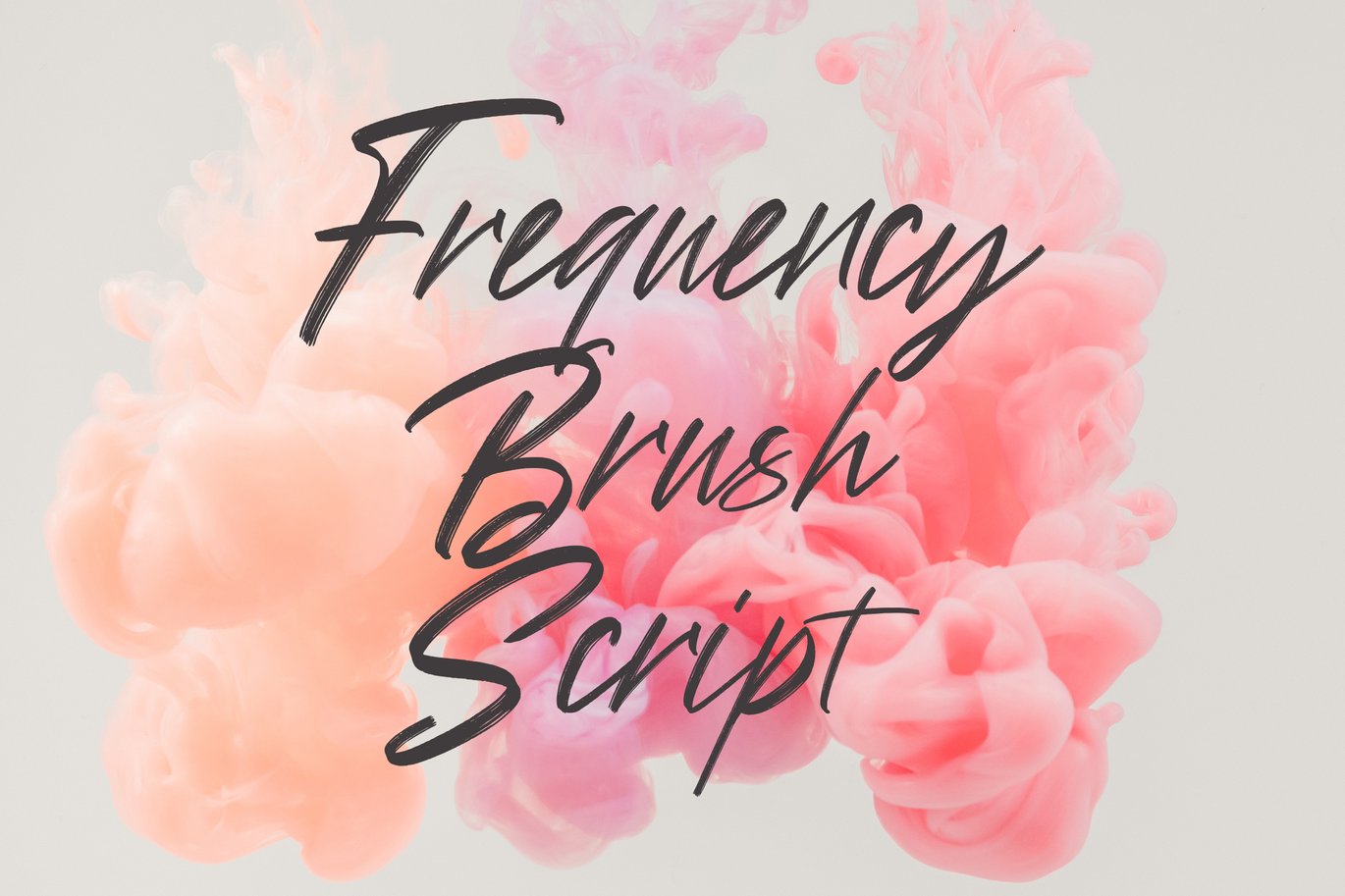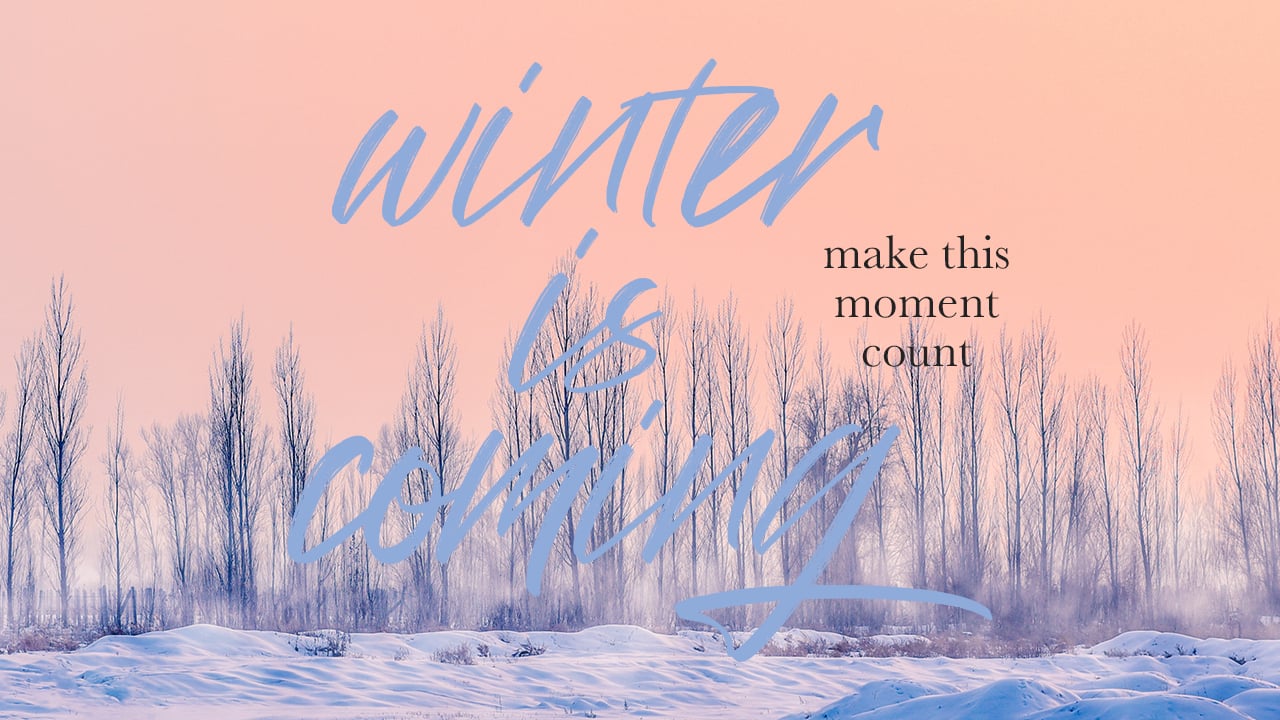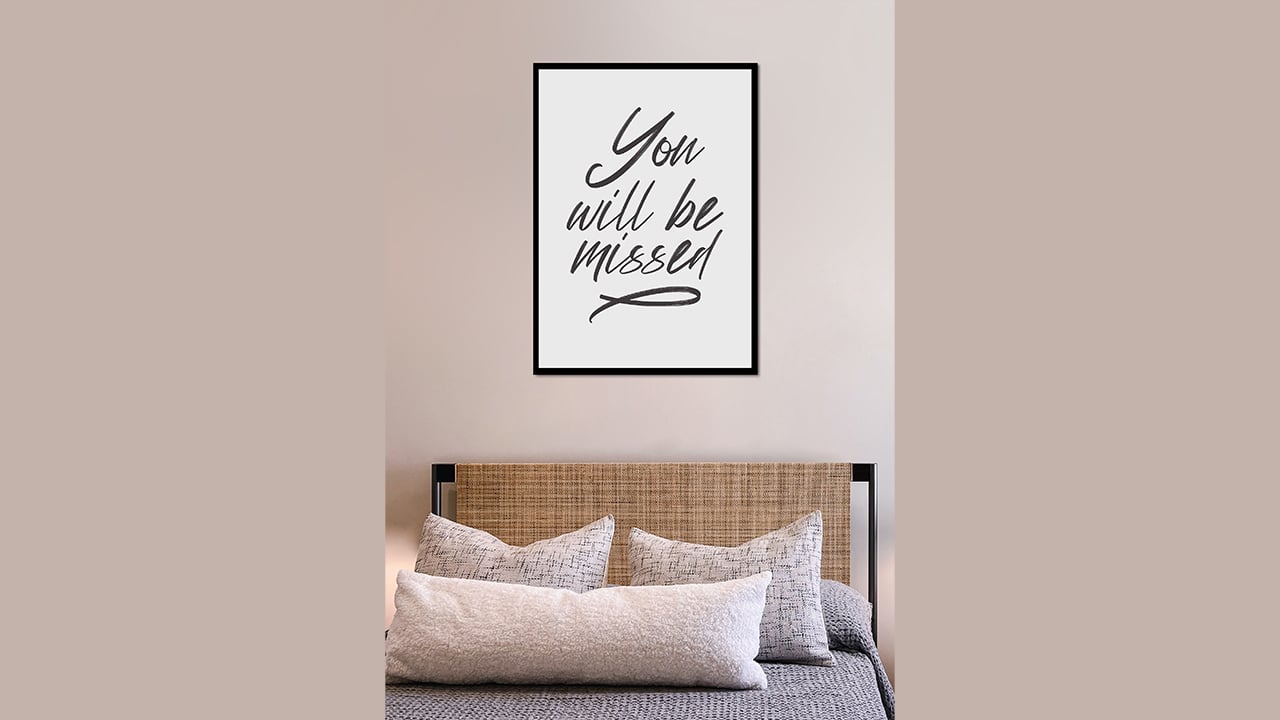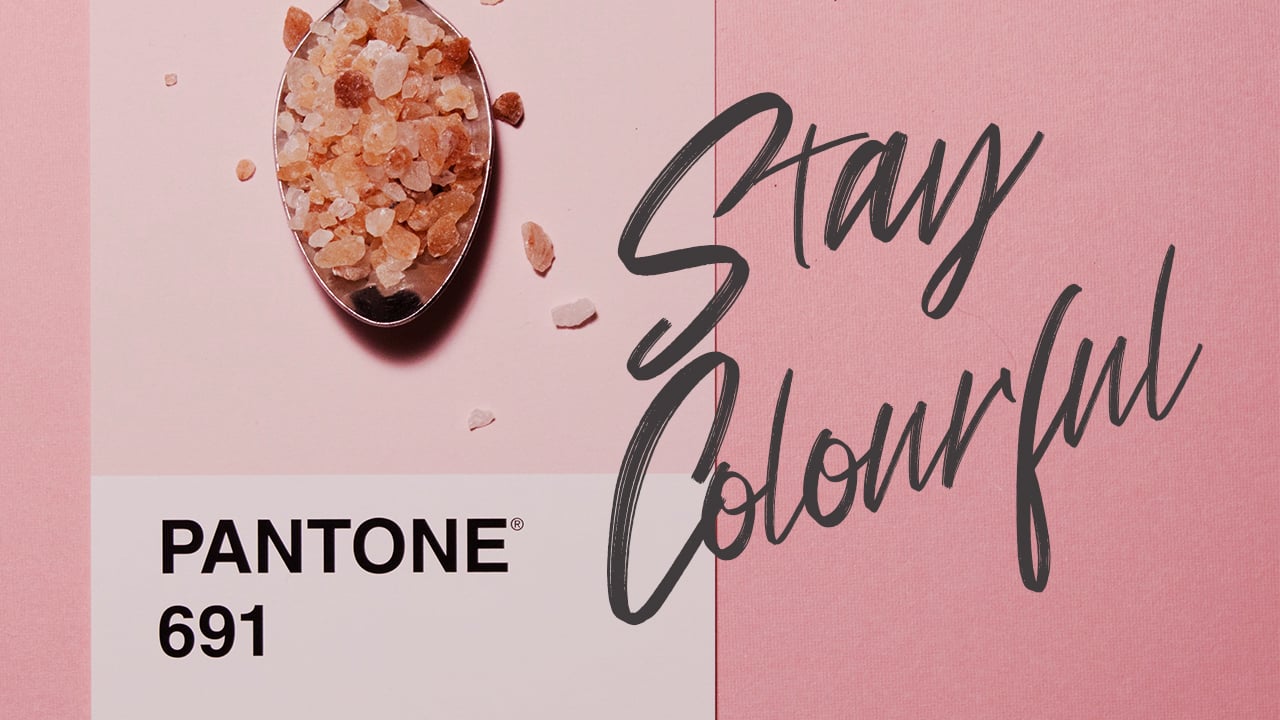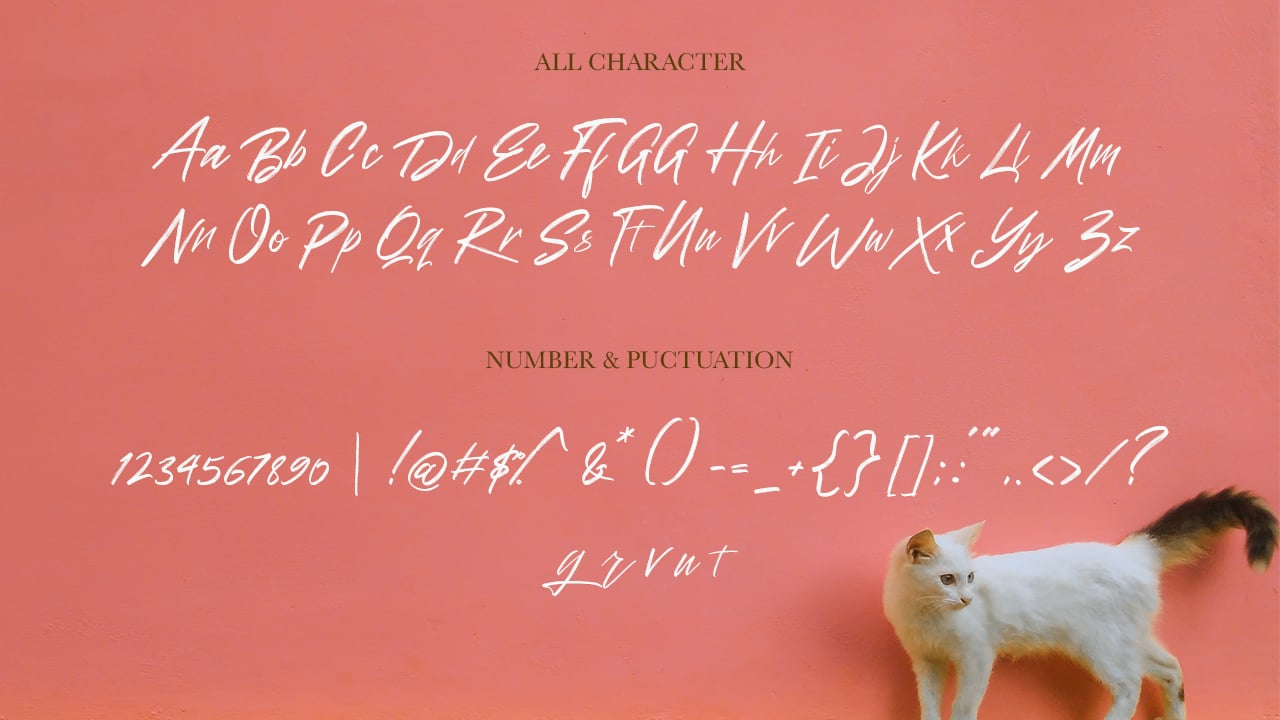
Frequency Brush Font
We introduce our new product called Frequency Brush Font
Frequency Brush Font is a Brush script font that you can use to make a design for logo branding, poster headline, magazines, book titles, business cards, beautiful fashion designs, advertisements, product designs, wedding invitation, signature or handwritten quote.